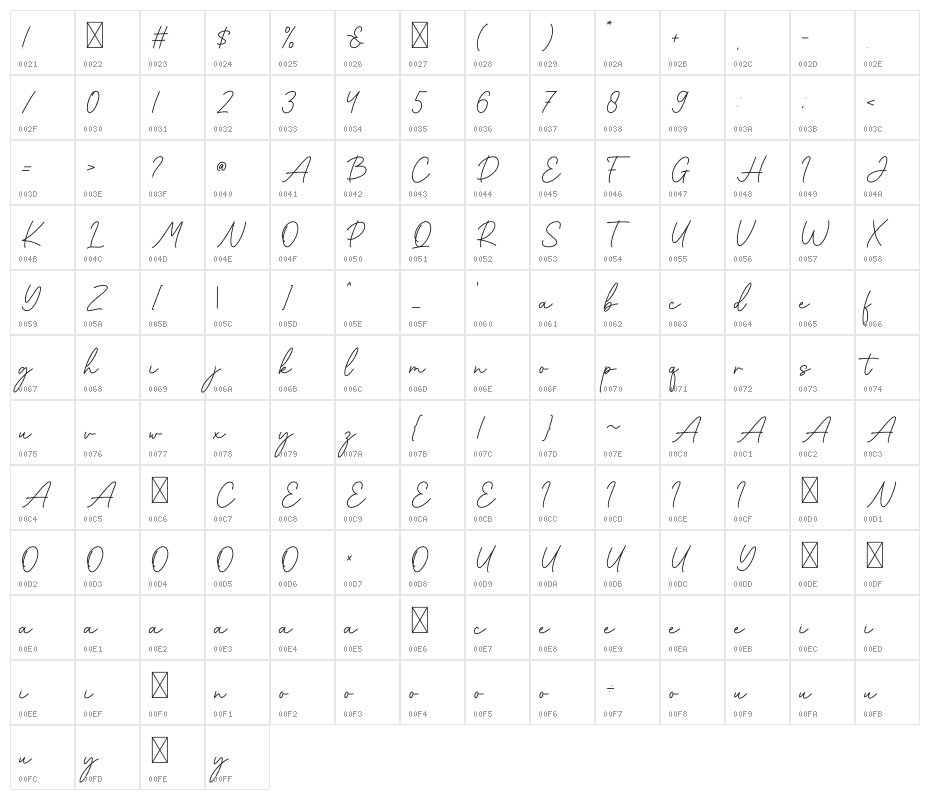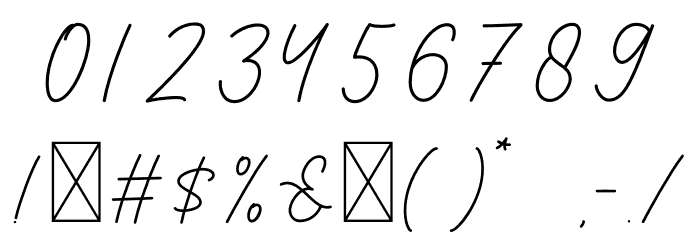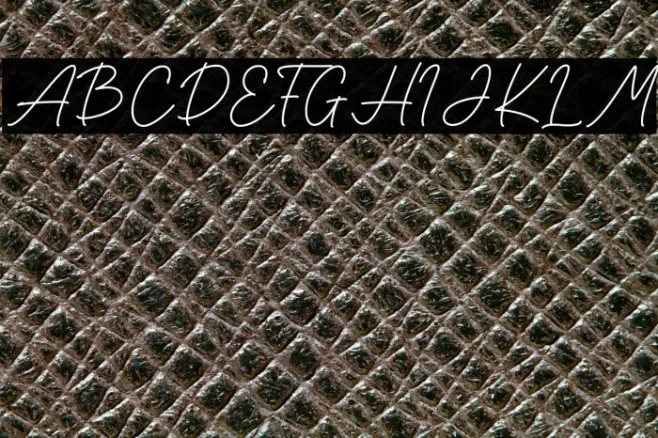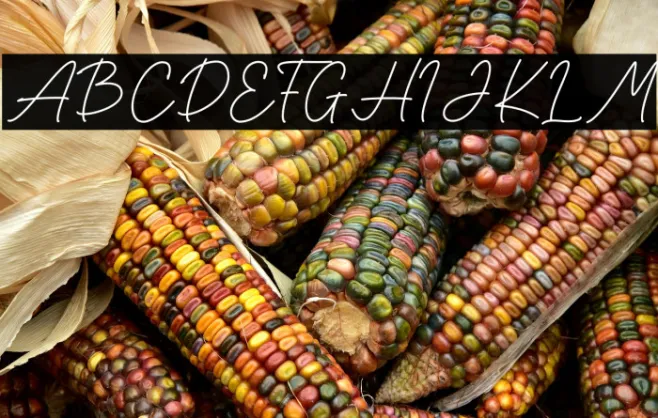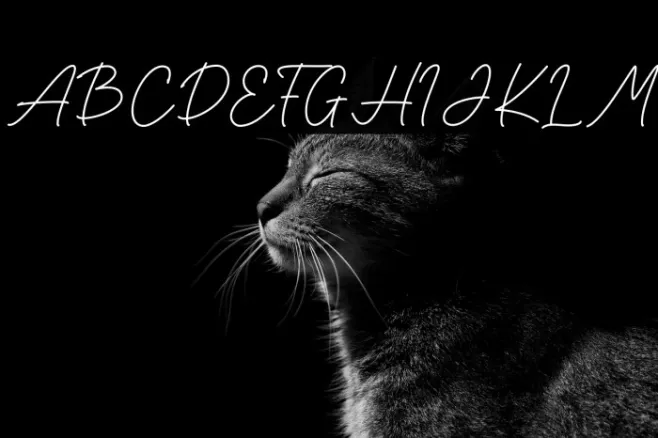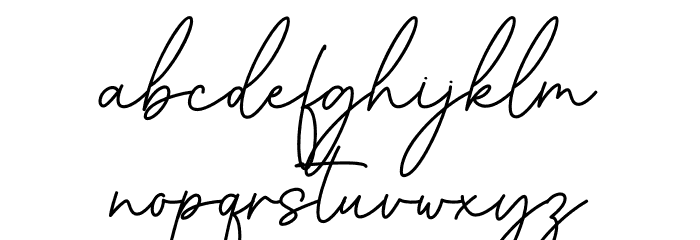
Cinthya Font
Cinthya Description
This font exudes a graceful and elegant handwritten style, characterized by its fluid and connected letterforms. The uppercase letters are tall and slightly slanted, giving a sense of sophistication and movement. The lowercase letters maintain a consistent flow, with smooth curves and delicate loops that enhance its cursive nature. The numerals are clear and legible, matching the overall aesthetic with their slender and slightly italicized appearance. Special characters are thoughtfully integrated, maintaining the font's cohesive and stylish look. This font is perfect for projects that require a personal touch, such as invitations, greeting cards, or branding materials that aim to convey elegance and warmth.
| Overall Style | Elegant, Cursive |
| Use Case | Invitations, Personal branding, Greeting cards |
| Proposed Projects | Ideal for wedding invitations, personal branding, greeting cards, and elegant stationery. |